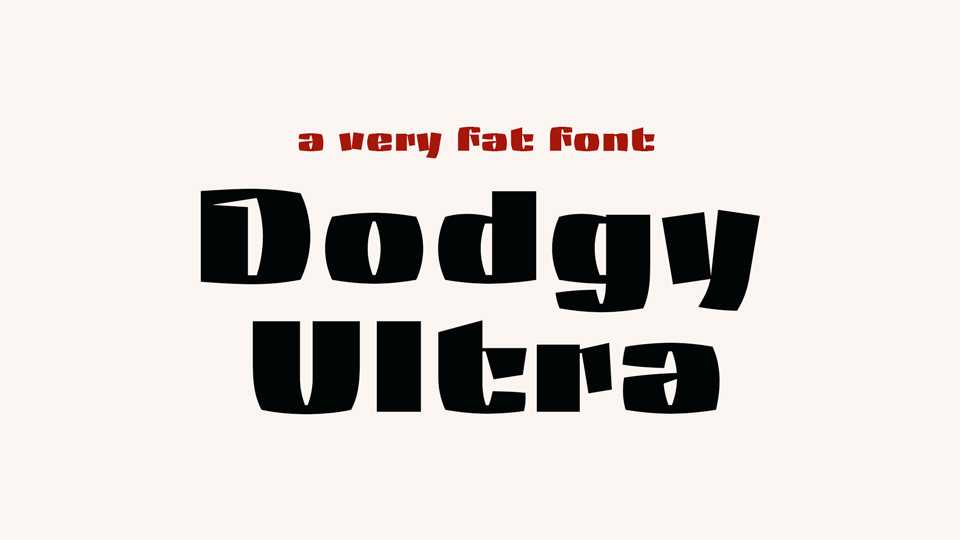
Download Dodgy Ultra font, a very fat and simplified font with a strong personality for headlines, posters and eye-catching messages.
Designer: Frank Baranowski